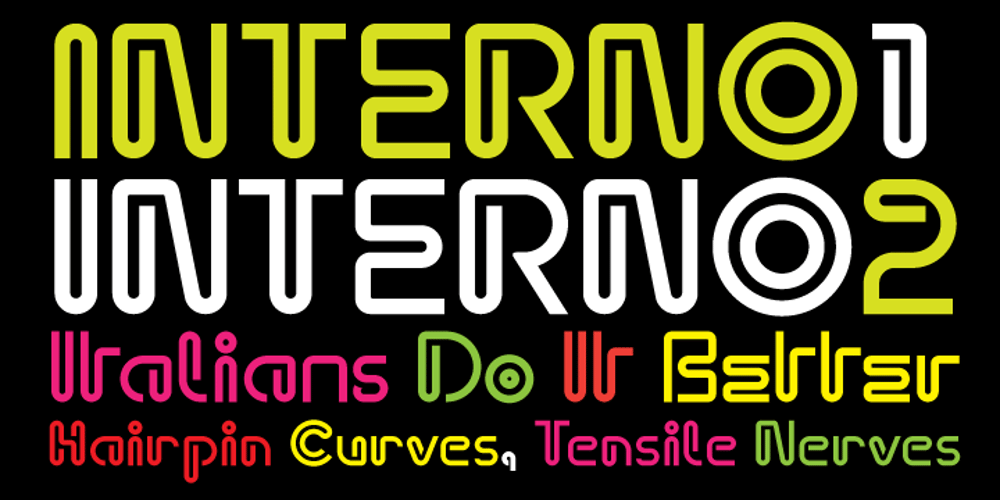
Interno
Interno font
Interno Font Family was designed by Ian Lynam, Eli Carrico and published by Wordshape. Interno contains 6 styles and family package options. Interno is a headline typeface built from a Walter Ballmer Olivetti logo exploration drawn sometime in 1960. Work on Interno commenced in 2006, but was soon abandoned. In 2009, Eli Carrico picked it up and ran with it, completing Interno 1. Ian Lynam picked through Eli’s development stages of the typeface and edited together a slightly different version, Interno 2, utilizing a mix of development characters and original characters. Interno is Italian for internal (or at least that is what the translation widget told us). A great deal of the classic Olivetti design was down in-house (i.e. internal). Also, the typeface has internal switchbacks reminiscent of a paperclip. Interno sounds a bit like “turning inside” phonetically(In-Turn-O). Additionally, Interno takes the first letter and last letter of Olivetti and flips it. What was the inspiration for designing the font? It was built from a Walter Ballmer Olivetti logo exploration drawn sometime in 1960 What are its main characteristics and features? It is a highly contemporary display font that bends in on itself, evoking classic Italian modern graphic design. Usage recommendations: Display type for use in editorial, packaging, and any other type of project that needs some Italian flavor.